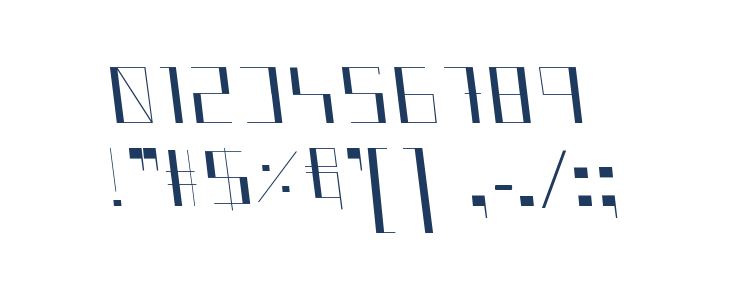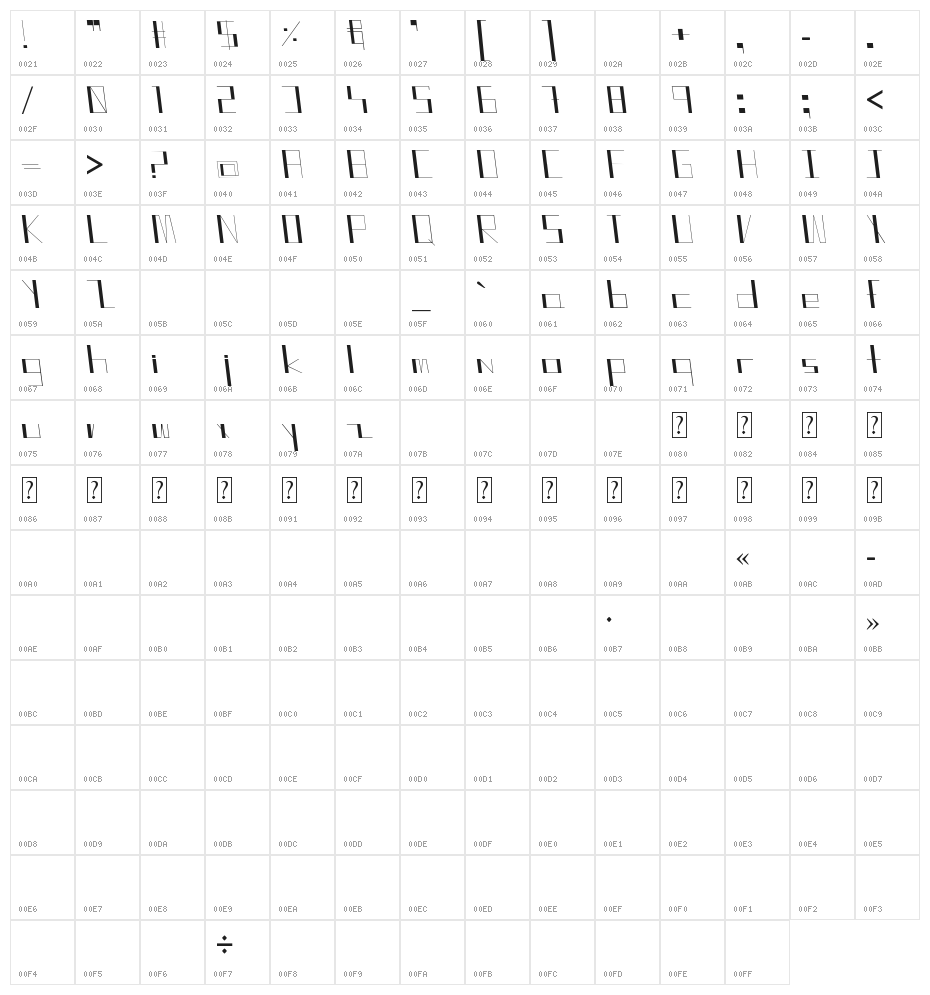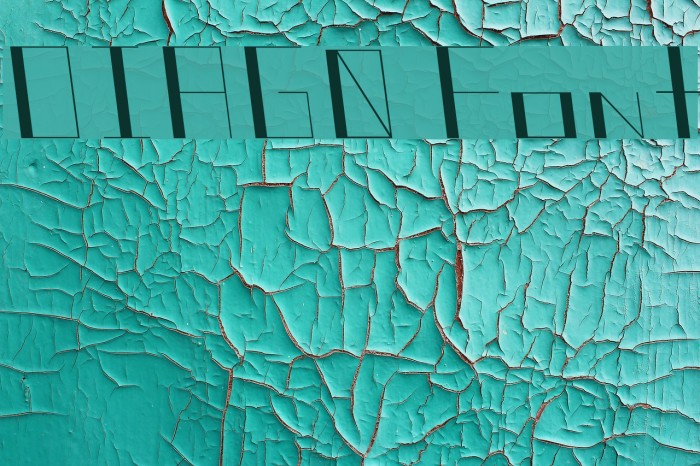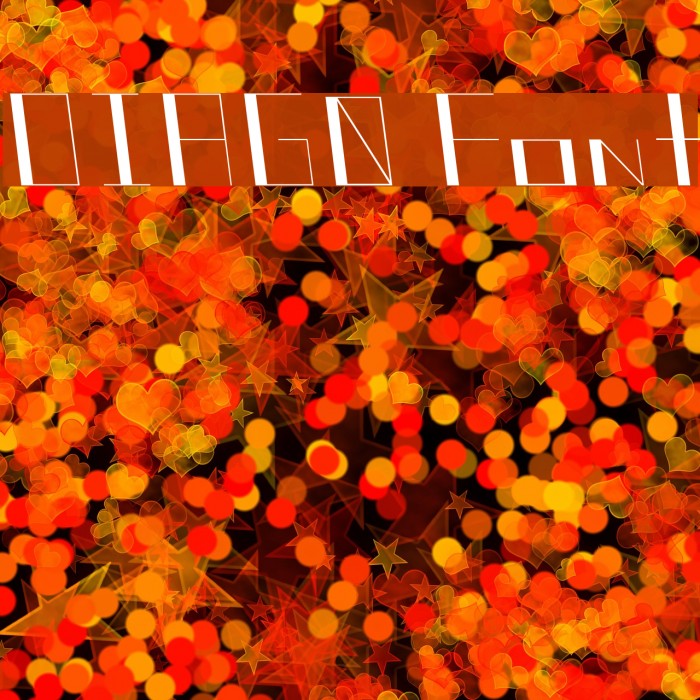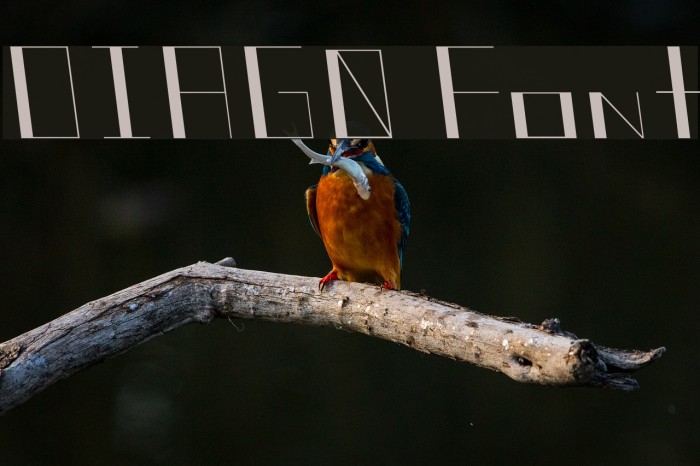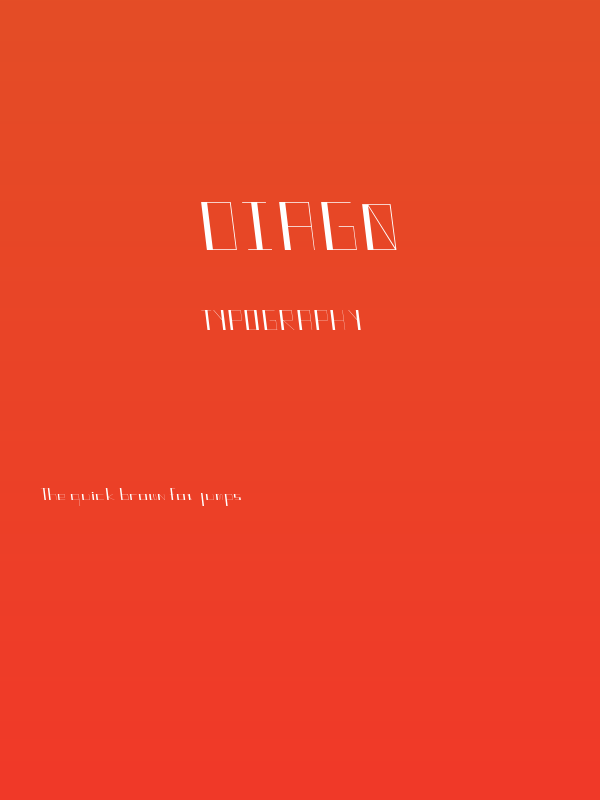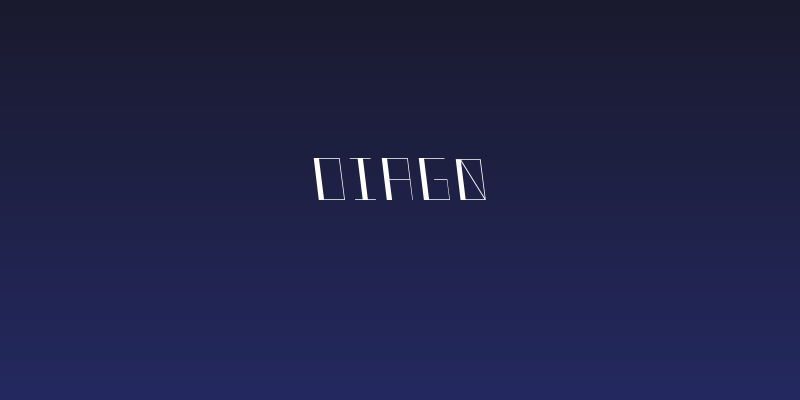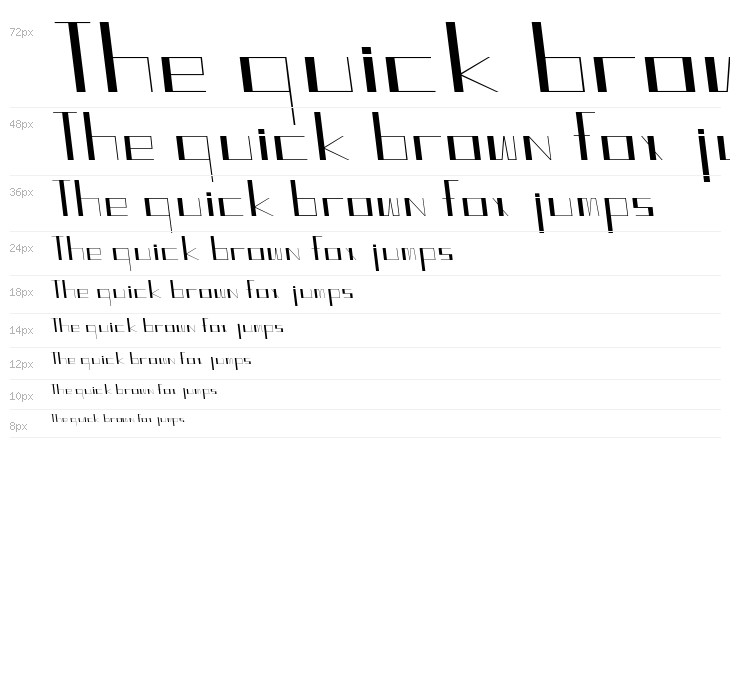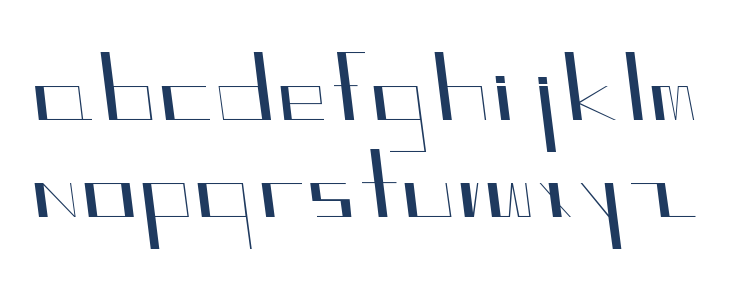
DIAG0 Font
DIAG0 Description
This font features a modern, geometric design with a distinct angular style. Each character is composed of straight lines and sharp angles, giving it a futuristic and technical appearance. The uppercase and lowercase letters maintain a consistent height, contributing to a uniform look. The numerals and special characters follow the same angular theme, ensuring visual coherence across all elements. The font's unique structure makes it stand out, ideal for projects that require a contemporary and edgy aesthetic.